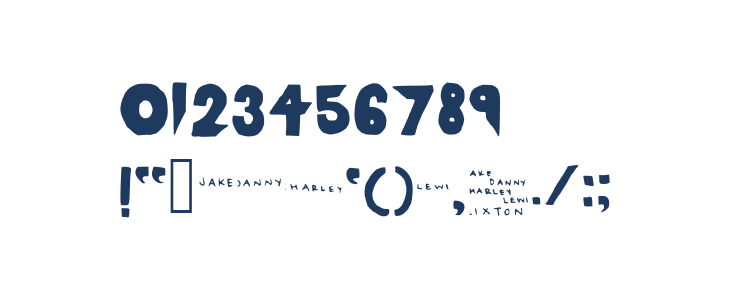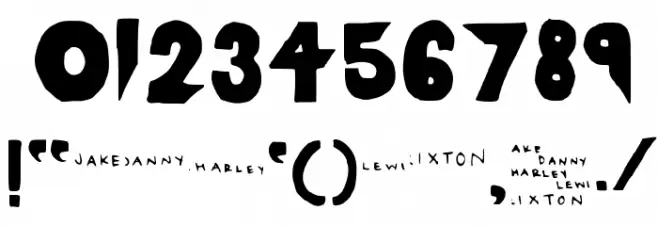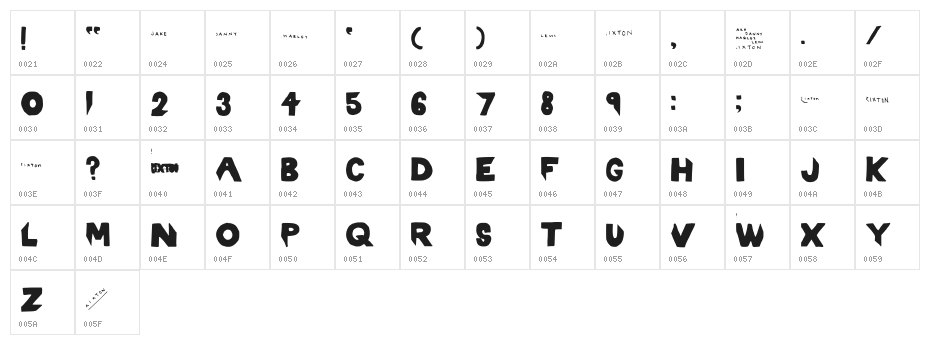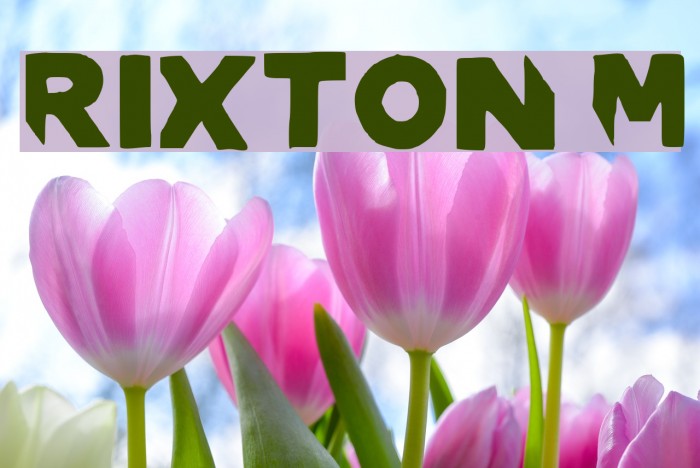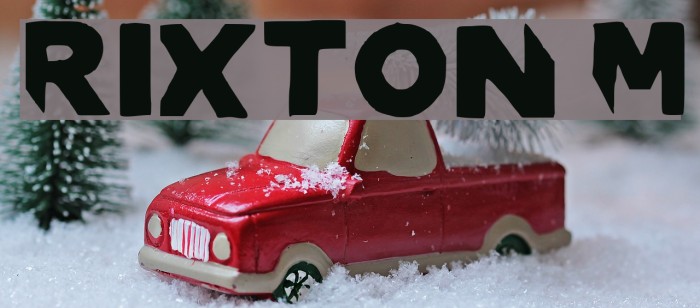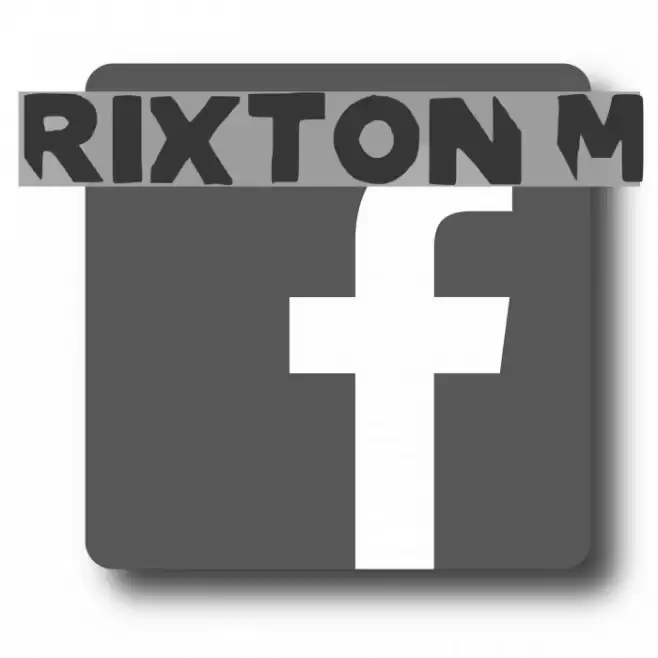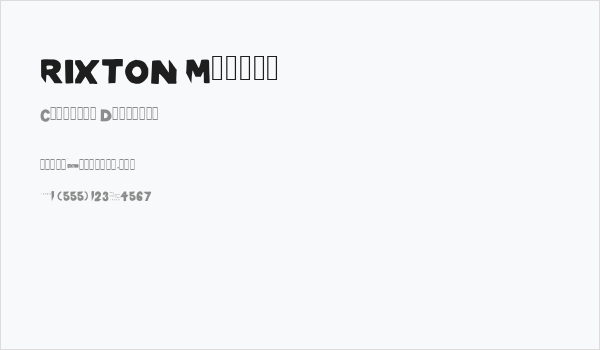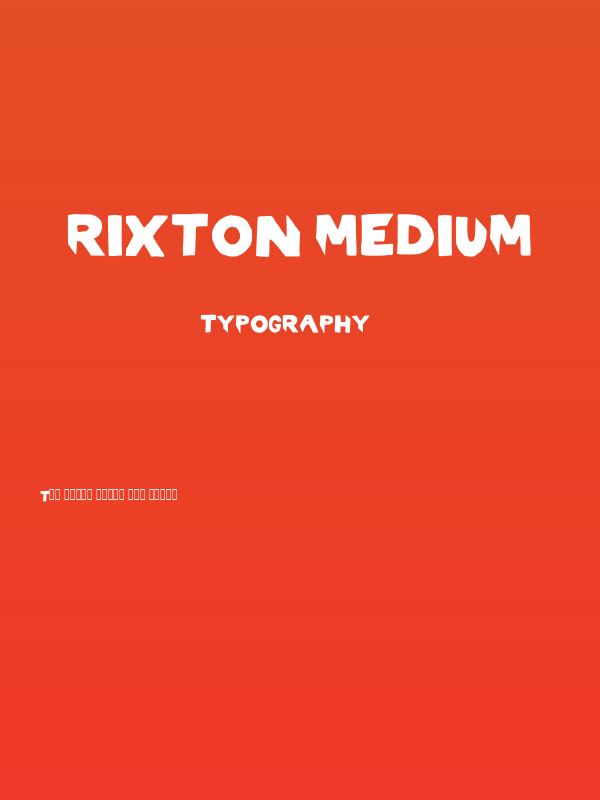
RIXTON Medium Font
RIXTON Medium Description
This font features bold, angular characters with a playful and dynamic style. The uppercase letters are particularly striking, with exaggerated curves and sharp edges that give them a unique, eye-catching appearance. The lowercase letters maintain this boldness, creating a cohesive look across the alphabet. Numbers and special characters follow the same design principles, ensuring consistency. The font's overall style is reminiscent of retro or vintage designs, making it suitable for projects that require a touch of nostalgia or bold visual impact.